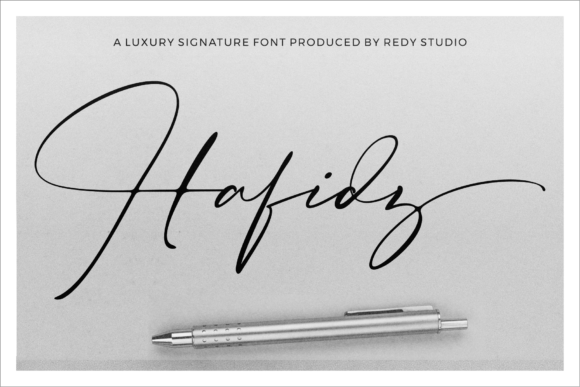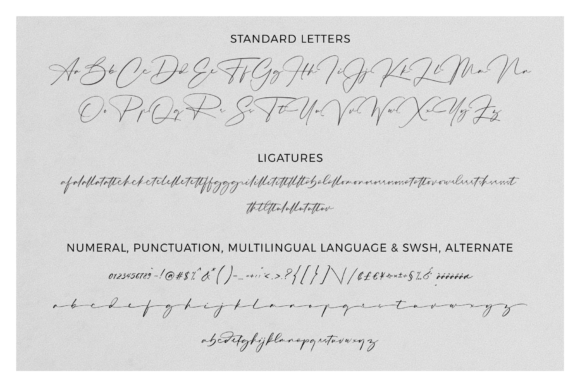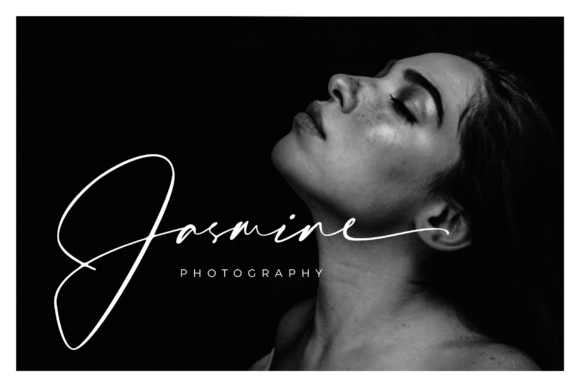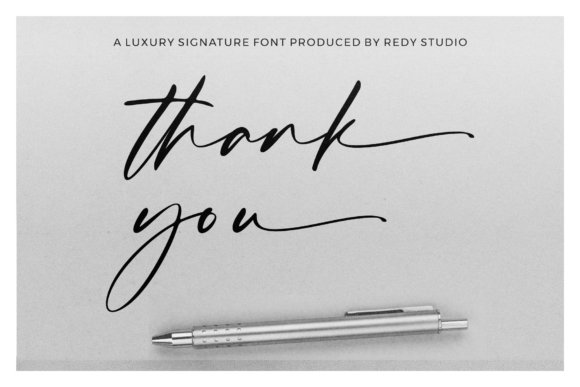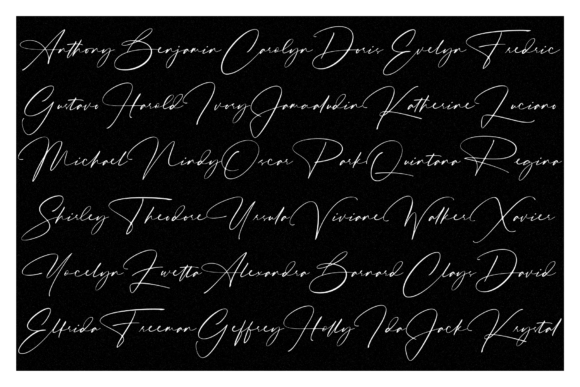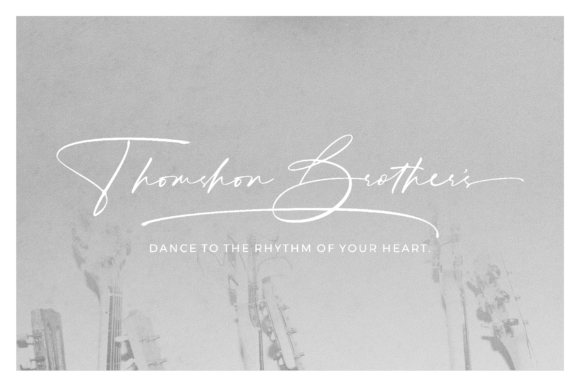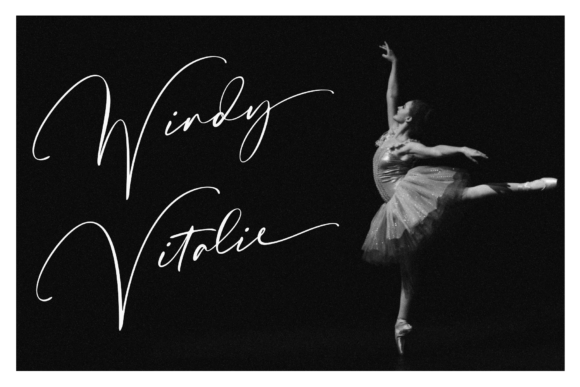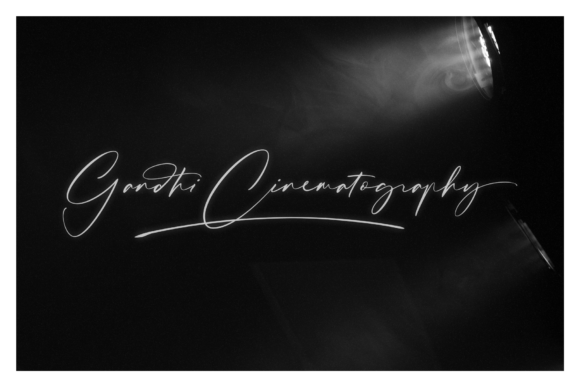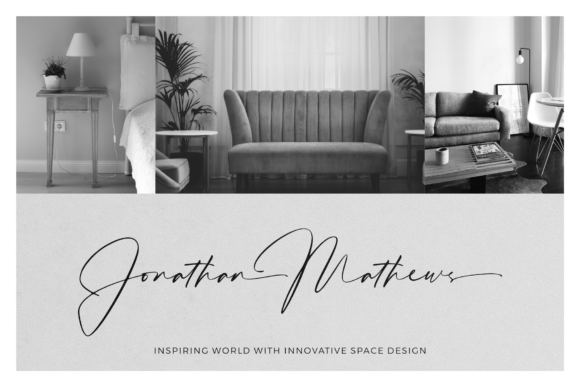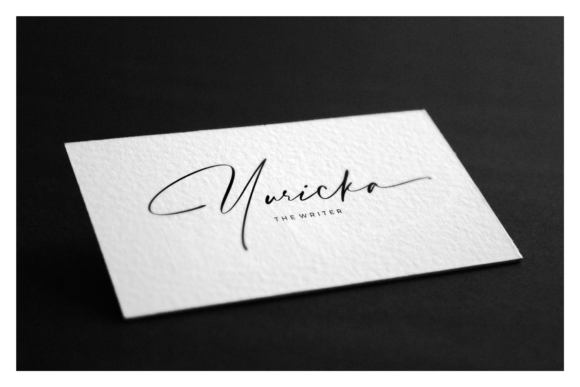
Hafidz Font
About Hafidz Font
The Hafidz is an amazing handwritten signature font. It’s inky, expressive yet readable, functional and is perfect for adding a natural touch to your designs.